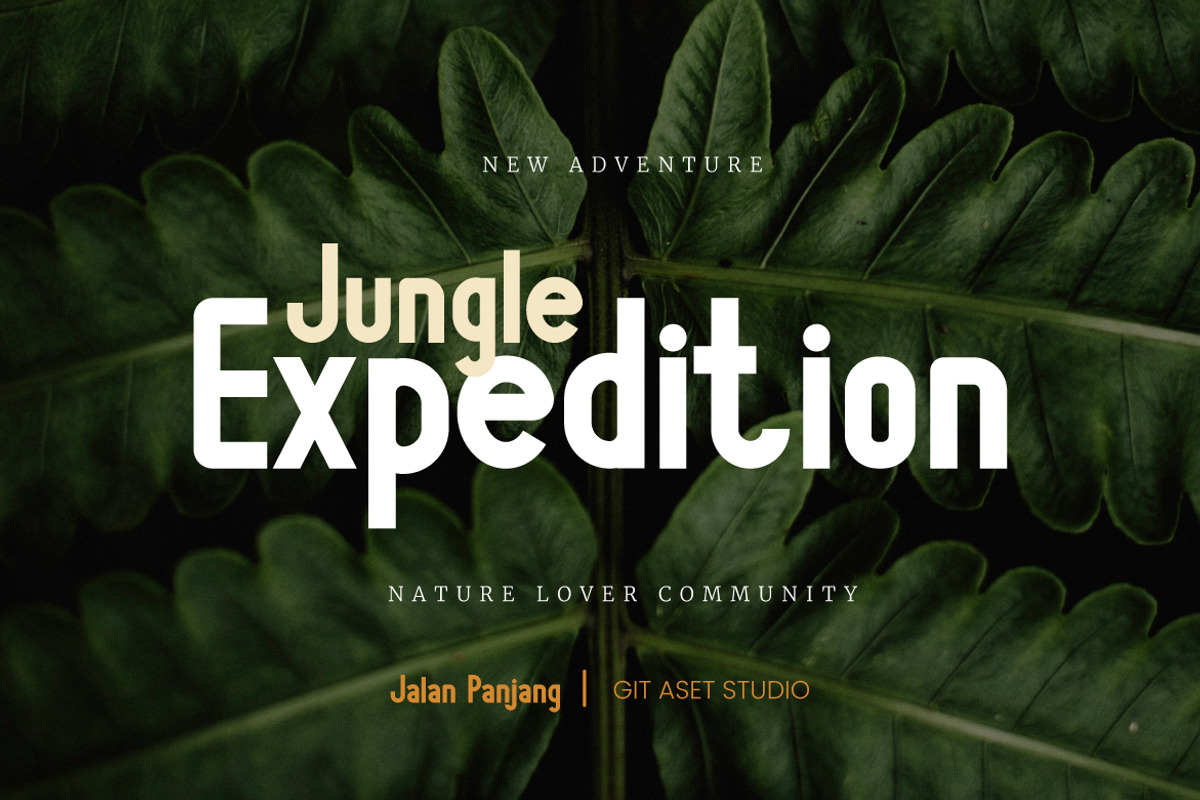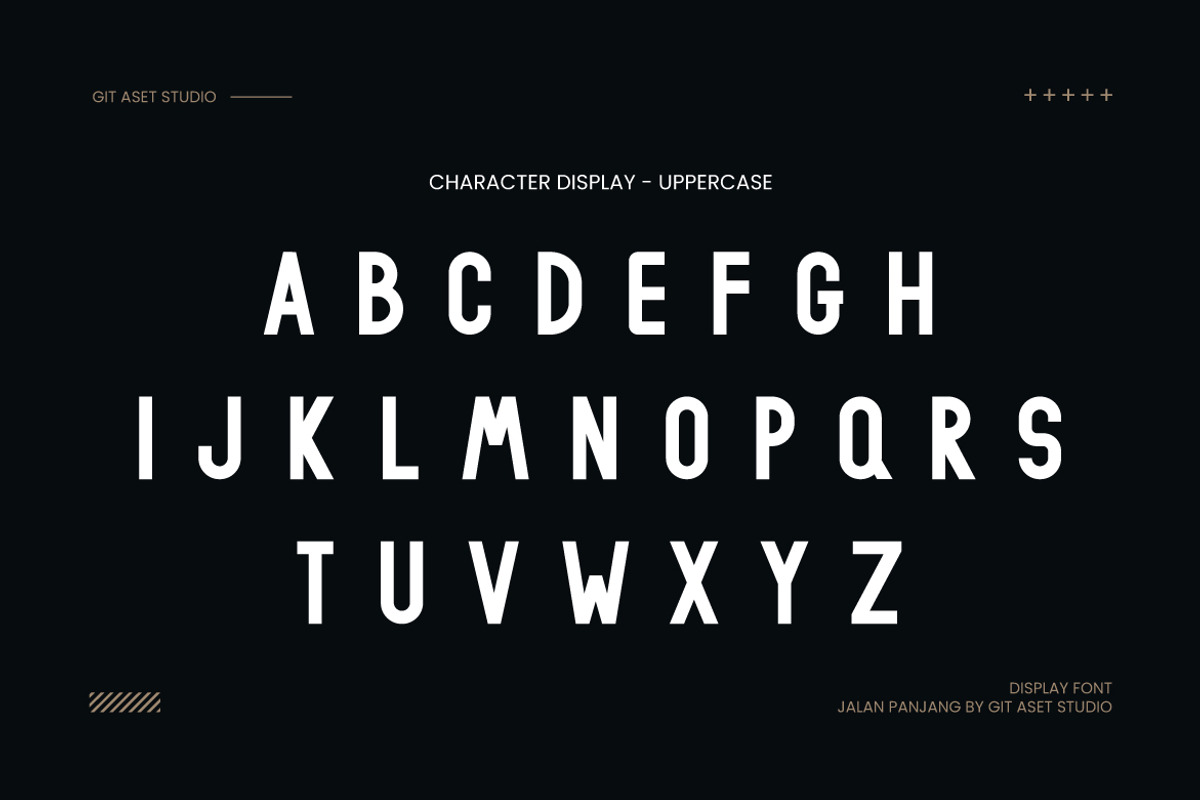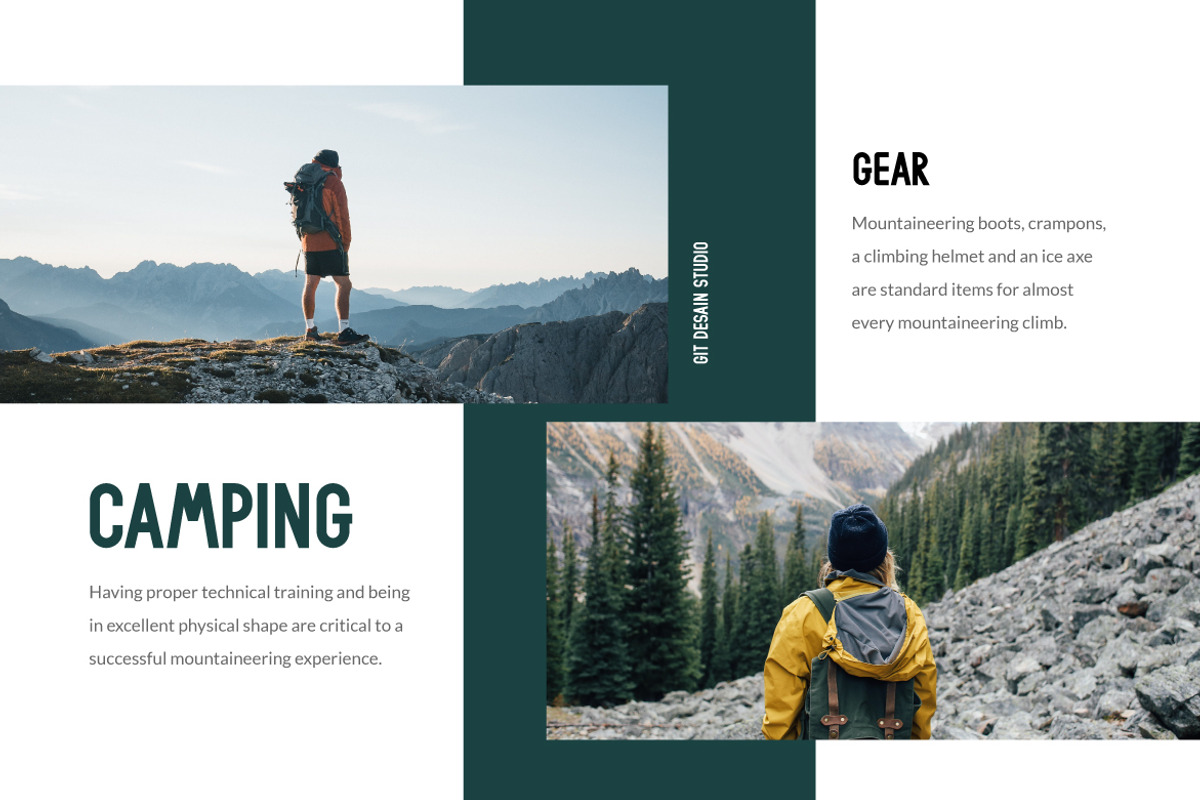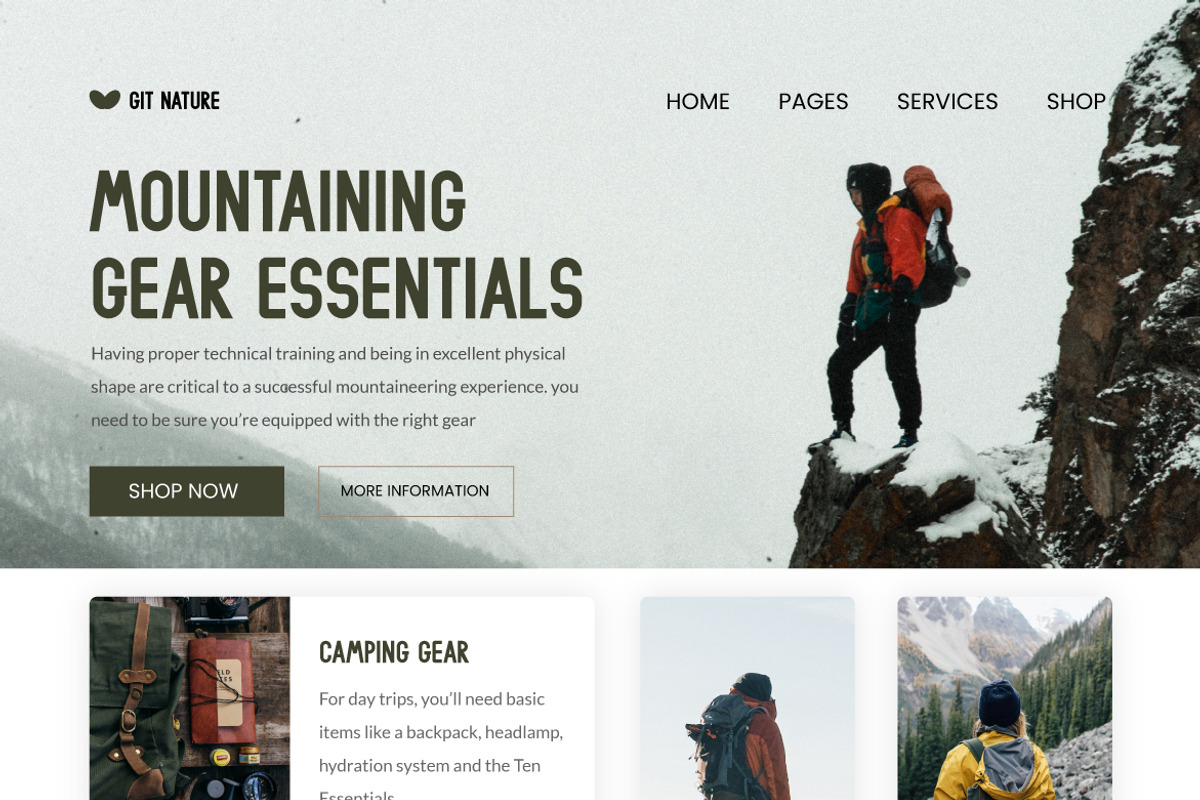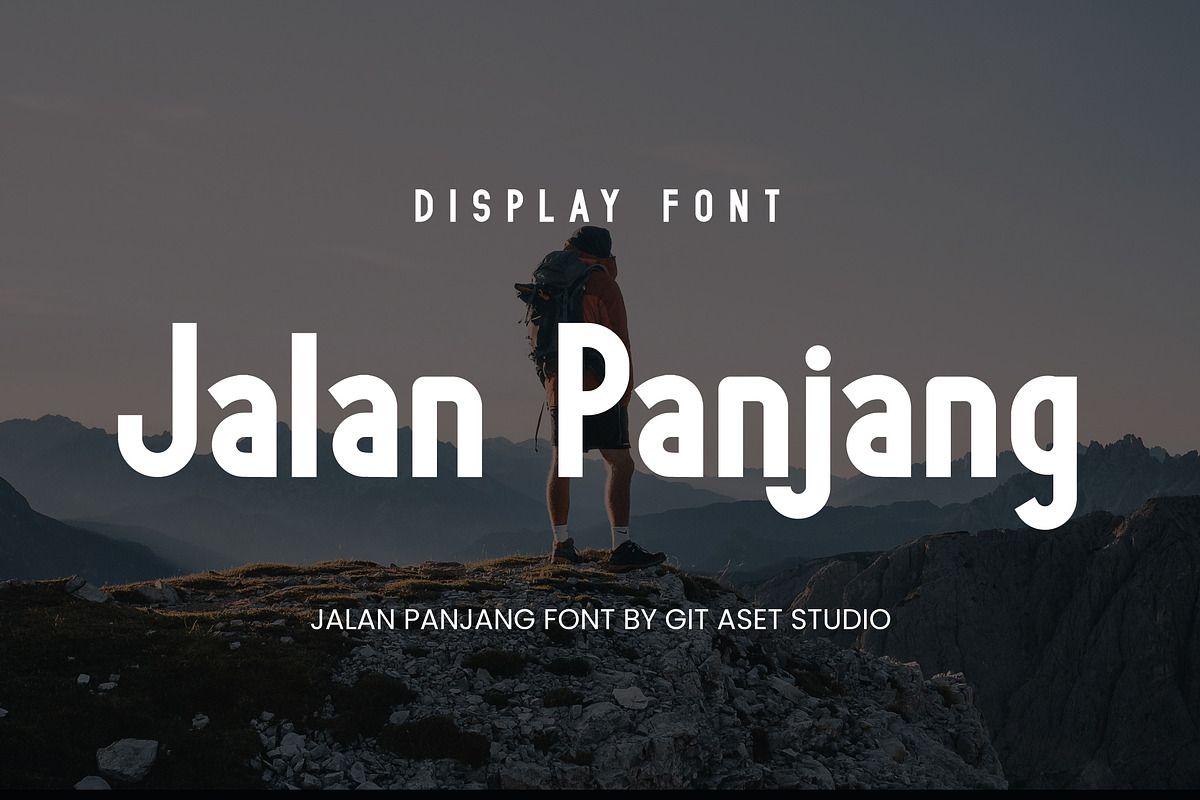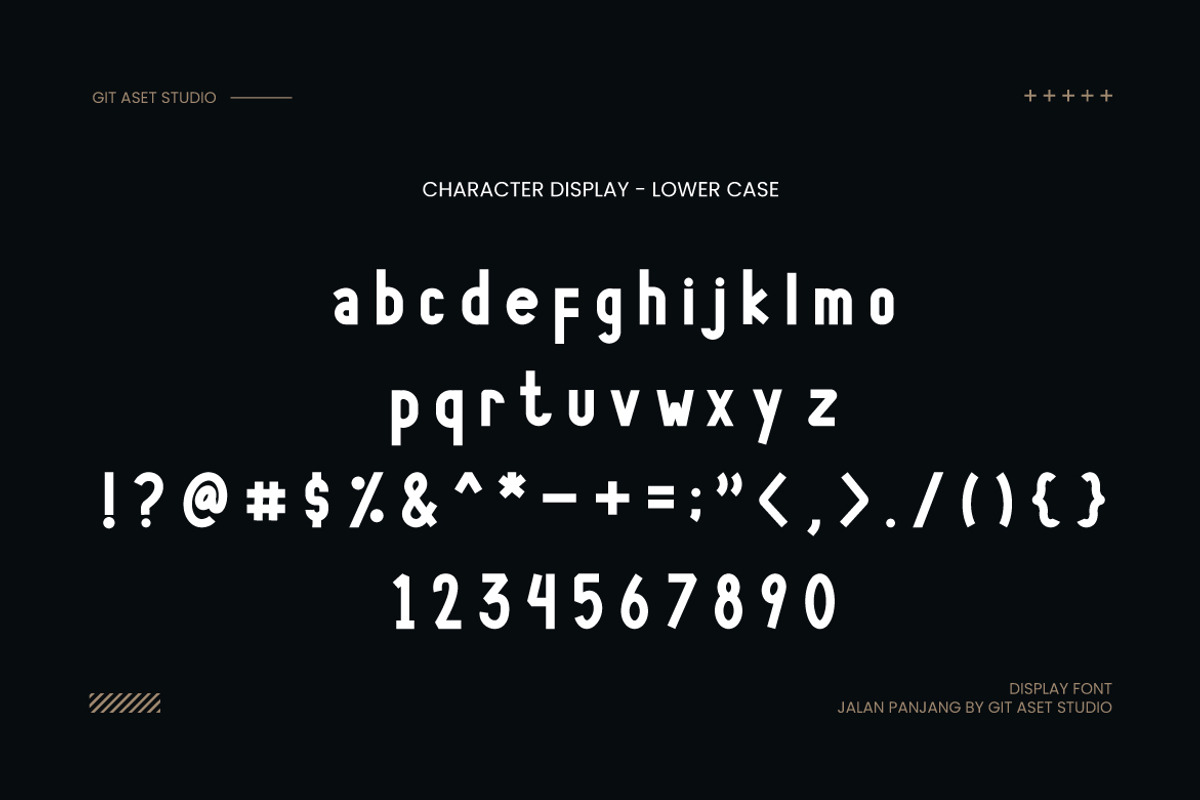
Jalan Panjang - Condensed Sans Serif
Introducing the Condensed Sans Serif font - the perfect font for your design needs! This font asset provides a sleek and modern look without compromising on readability. With a file format available in both OTF and TTF, it ensures compatibility with various design software.
Designed to enhance any project, this font is ideal for branding, advertising, packaging, and more. Its condensed style allows you to fit more content in limited spaces, making it perfect for posters, banners, and websites where space is precious.
Whether you're creating a logo for your startup, designing a magazine layout, or crafting an eye-catching social media post, the Condensed Sans Serif font will elevate your project to the next level. Its versatility allows for endless possibilities when it comes to communicating your message effectively.